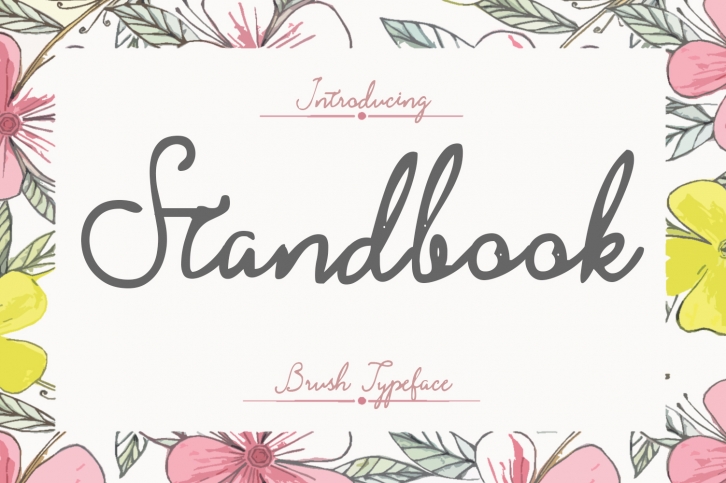
Standbook is a great font that was designed by Bonjour Type. Imagine the amount of combinations you can create using this font! The archive is 14.85 MB and it was released on October 25, 2016. Standbook looks beautiful on wedding invitations, greeting cards, logos, posters, labels, t-shirt designs, logos, business cards and is perfect for use in ink or watercolor works, fashion, magazines, packaging and food menus, children's books and more!